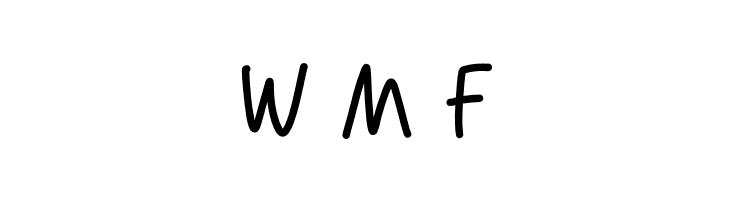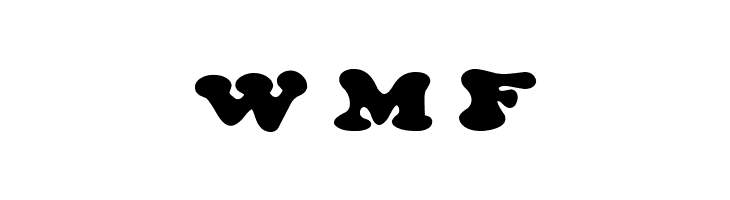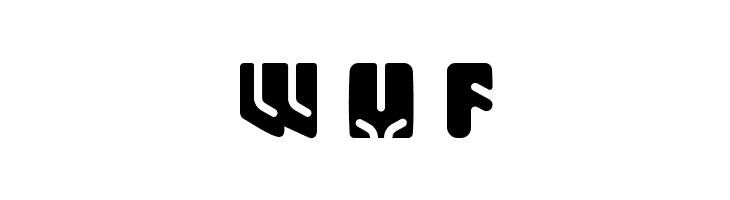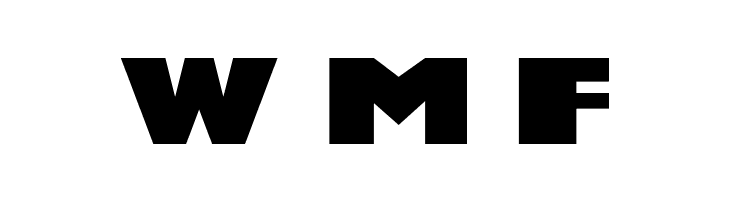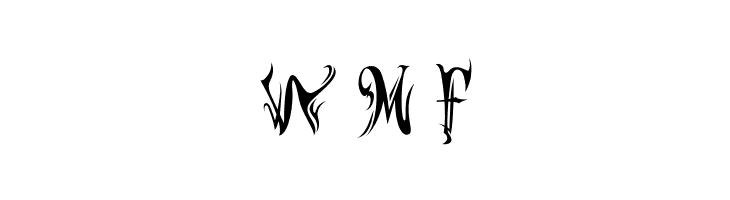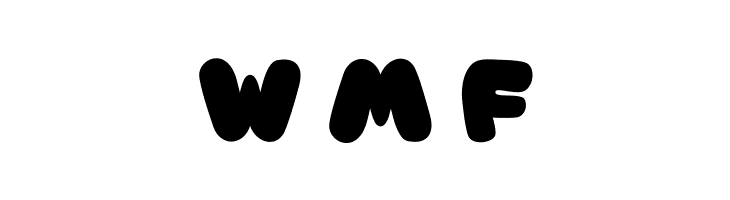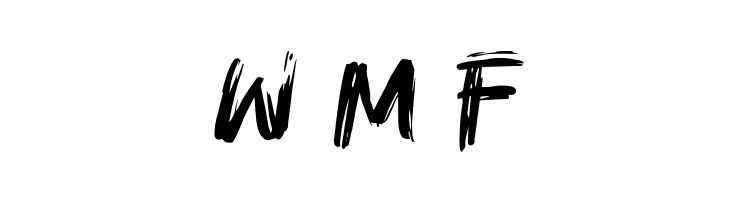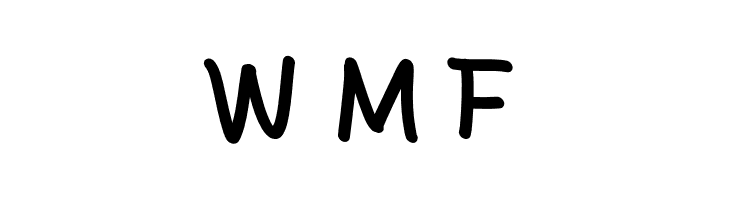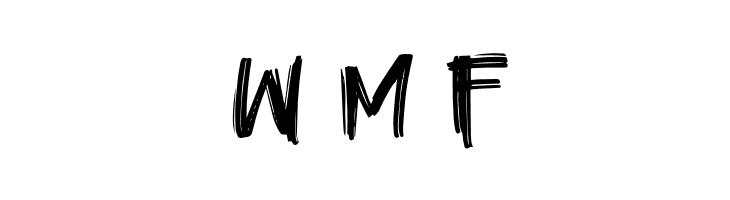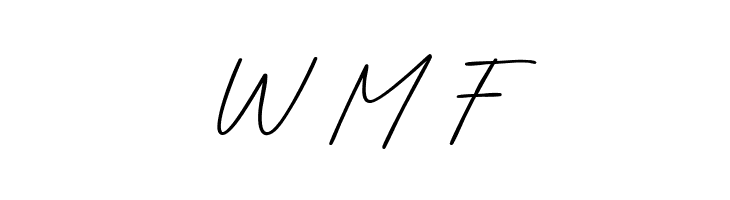
A bold, flowing script font with elegant, cursive letterforms.
A playful handwritten font with smooth curves and a casual style.
A playful, casual handwritten font with smooth, flowing curves.
A playful, casual handwritten font with uneven strokes and a friendly appearance.
A playful, bold font with rounded characters and a whimsical style.
A bold, playful font with thick, rounded characters and a whimsical style.
A bold, dynamic font with sharp, angular cuts and high contrast strokes.
A bold, playful font with rounded, bubble-like characters ideal for fun and creative designs.
A bold, geometric font with a modern, artistic flair and unique cut-out patterns.
A bold, playful typeface with rounded, bubbly characters.
A bold, playful font with rounded, bubbly characters and a hand-drawn feel.
A bold, angular font with a modern, dynamic style and high contrast.
A bold, graffiti-inspired font with dynamic, angular strokes.
A bold, graffiti-inspired font with a playful, hand-drawn style.
A playful handwritten font with a casual and friendly style.
A bold, geometric font with strong, angular lines and a blocky appearance.
An ornate and decorative font with intricate flourishes and a calligraphic style.
A modern, geometric sans-serif font with a clean and minimalist design.
A geometric, angular font with a futuristic and artistic style.
A bold, decorative font with geometric and star-like motifs.
A bold, three-dimensional font with a shattered glass effect.
A bold, geometric font with consistent stroke widths and a modern aesthetic.
A futuristic, geometric font with circuit-like accents and rounded corners.
A bold, modern font with clean lines and a structured appearance.
A bold, modern sans-serif font with clean lines and geometric structure.
A bold, playful font with rounded, bubbly characters perfect for fun designs.
A bold, brush-style font with dynamic, expressive strokes.
A playful, handwritten font with smooth, rounded edges and a casual style.
A bold, energetic brush-style font with dynamic strokes and a hand-drawn appearance.
A cursive, handwritten font with a casual and fluid style.
A playful, handwritten font with smooth, rounded edges and a casual style.
A bold, brush-style font with dynamic, expressive strokes.
A bold, graffiti-inspired font with a playful, edgy style.
An elegant and flowing script font with a sophisticated style.